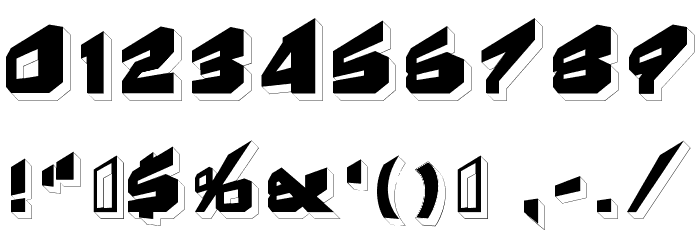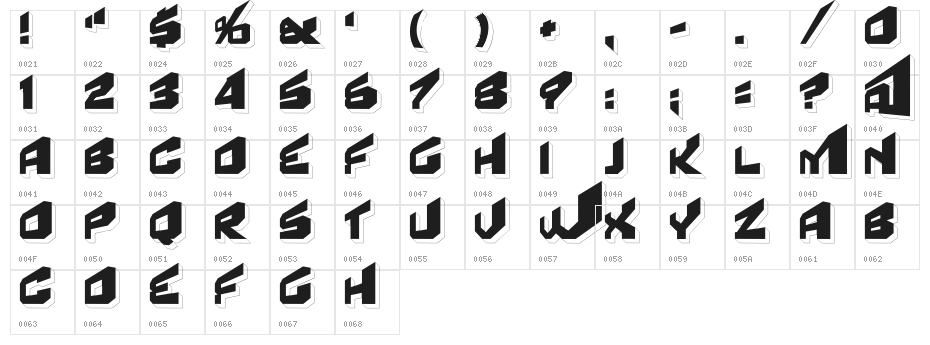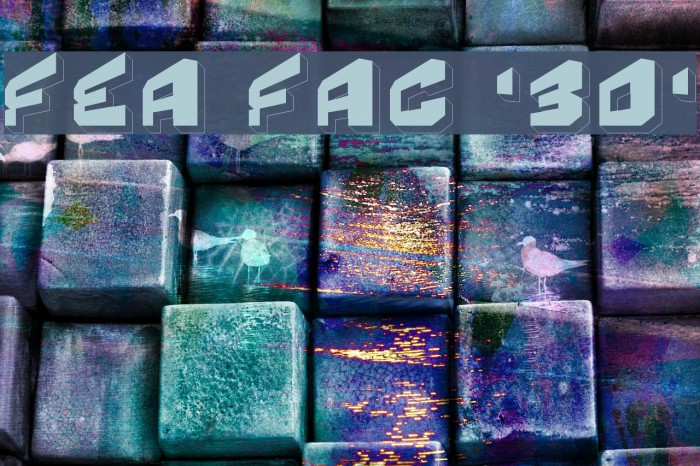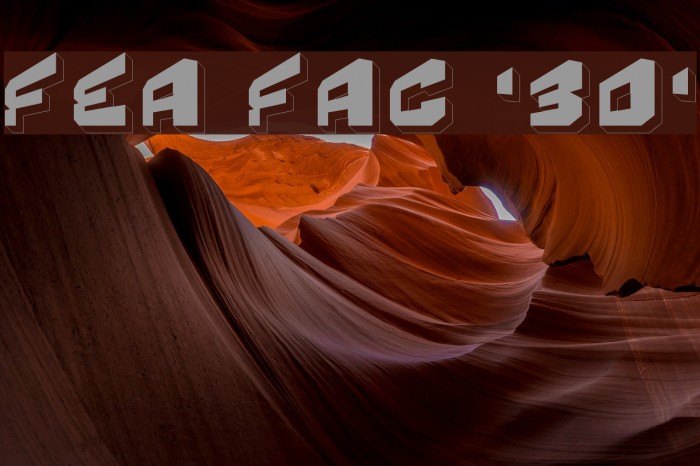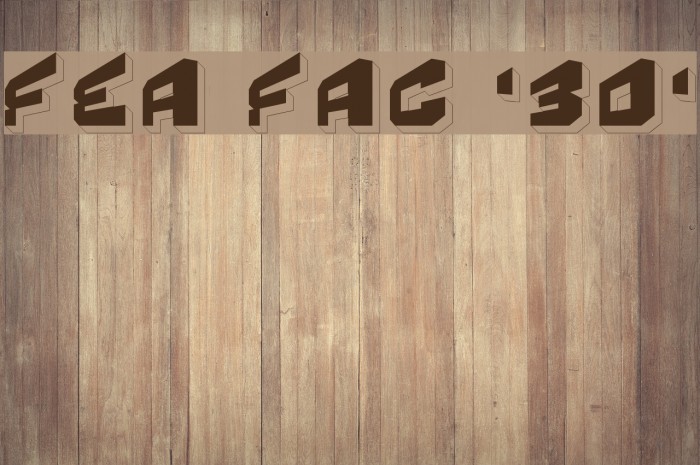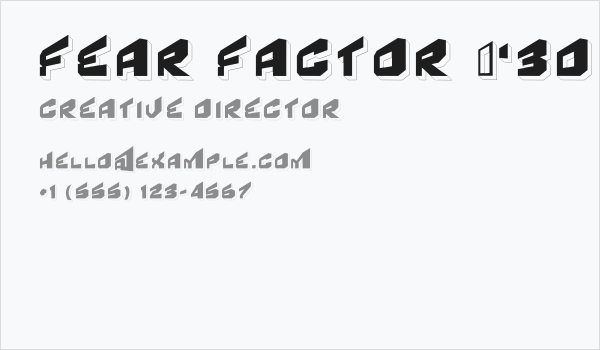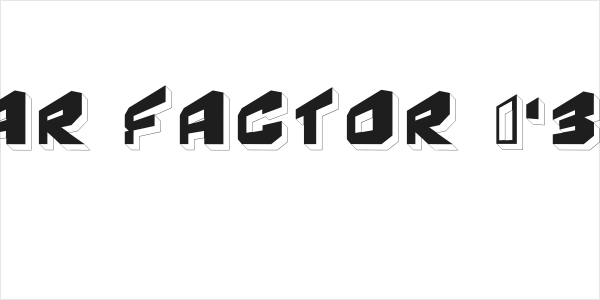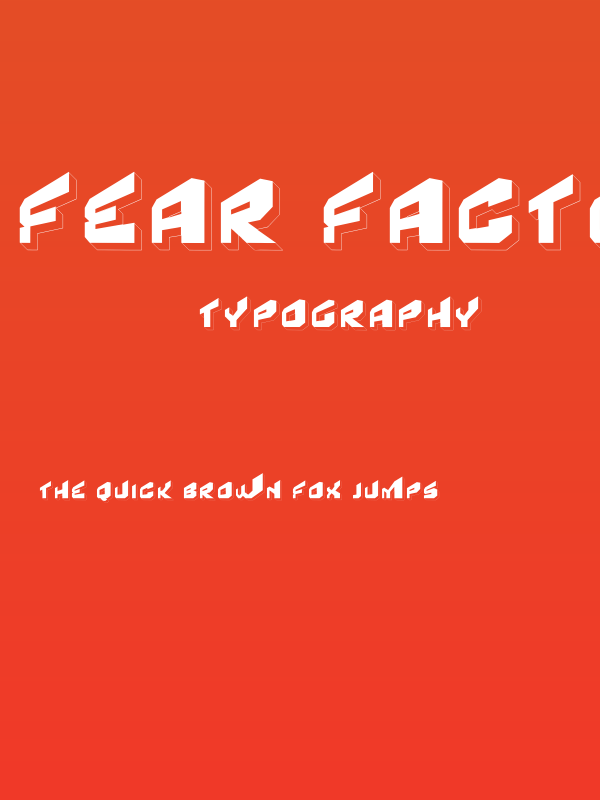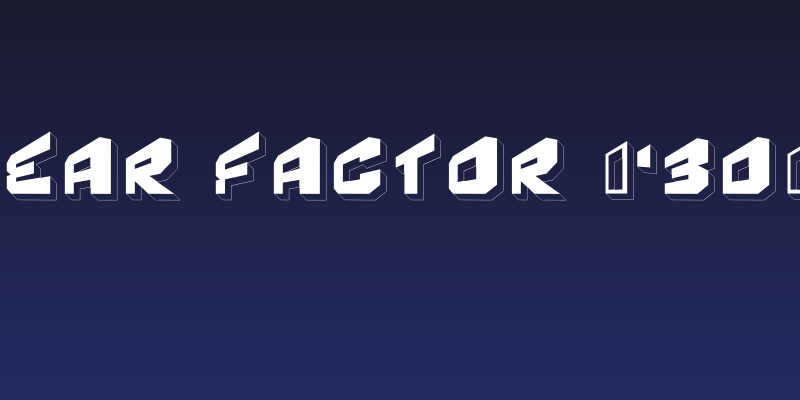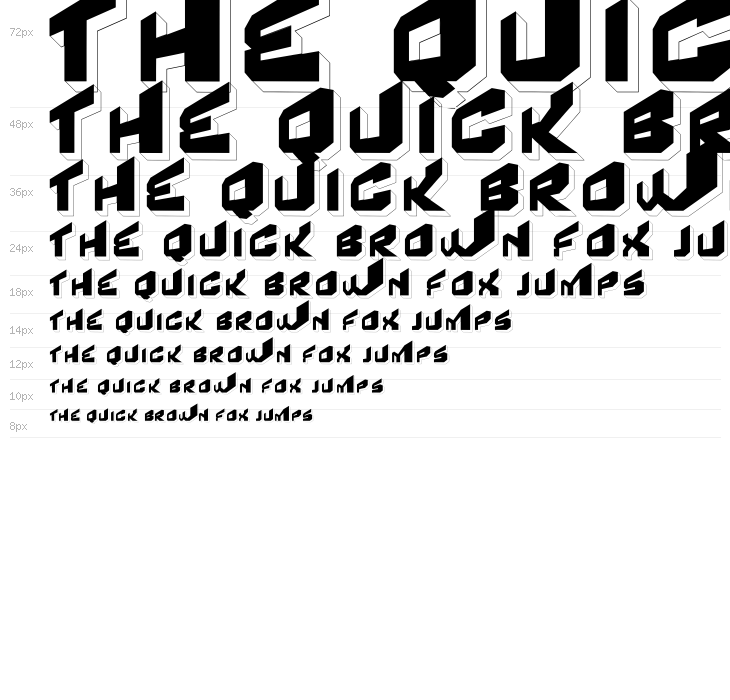
Fear Factor '3D' Font
Fear Factor '3D' Description
This font features a bold and dynamic 3D effect, giving each character a sense of depth and dimension. The letters are angular and geometric, with sharp edges and a strong presence. The shadowing effect enhances the three-dimensional look, making it ideal for eye-catching designs. The uppercase and lowercase letters maintain a consistent style, while the numbers and special characters complement the overall aesthetic. This font is perfect for projects that require a modern and impactful appearance.
| Proposed Projects | Ideal for video game titles, movie posters, branding for tech companies, and any design needing a futuristic or edgy look. |